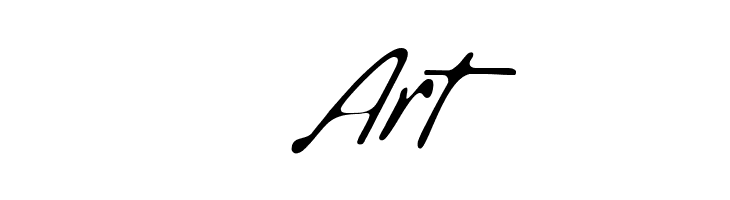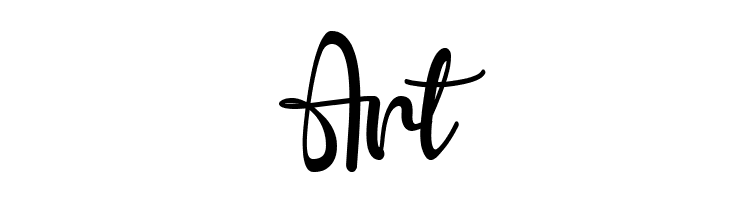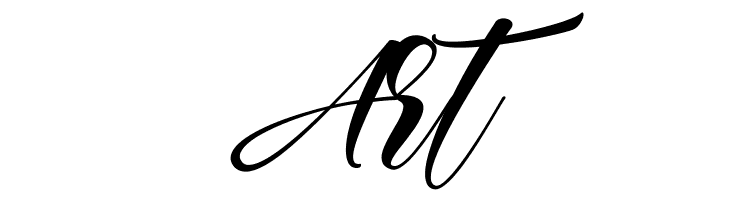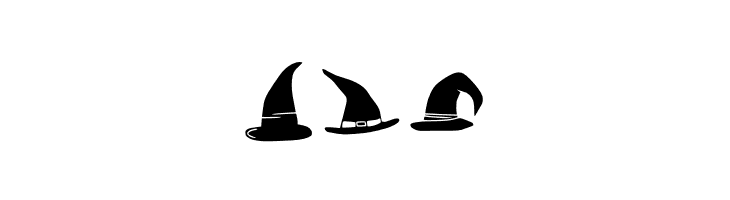
A playful display font using witch hats as characters.
A modern, elegant script font with flowing, cursive letters and intricate flourishes.
A modern, elegant script font with high contrast and flowing, interconnected letters.
A slanted, cursive font with elegant curves and a sophisticated style.
A dynamic and fluid script font with elegant, flowing lines.
A bold, brush-style font with a dynamic, hand-painted look.
A flowing, cursive script font with elegant loops and swashes.
An elegant script font with flowing, ornate swashes and flourishes.
An elegant script font with flowing, cursive style and ornate flourishes.
A bold, expressive script font with a dynamic, handwritten style.